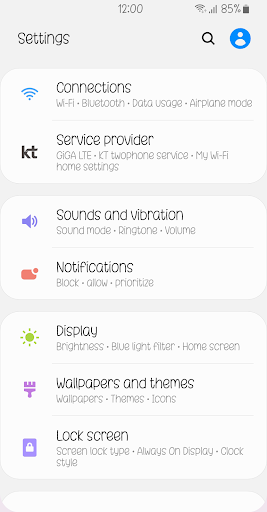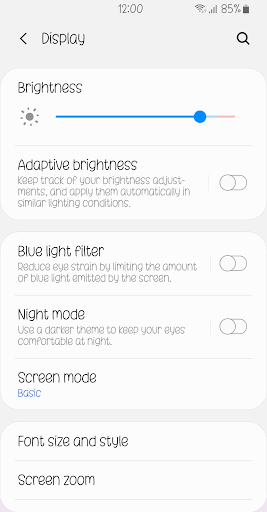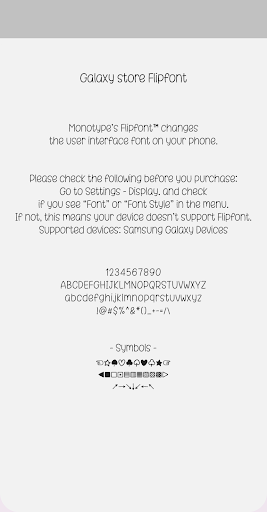
Nm Smalltalk
Nm Smalltalk is a lovely and cute font and has good readability. Customize your phone with this. Please try this font and leave your feedback.